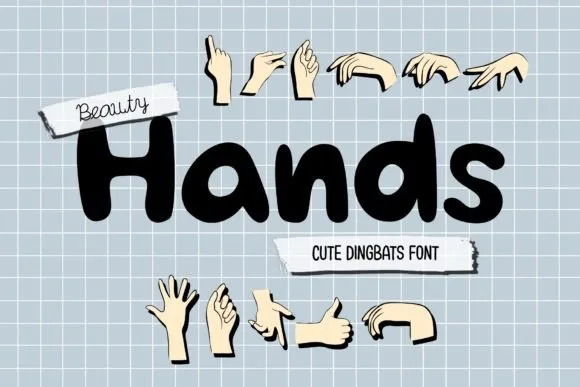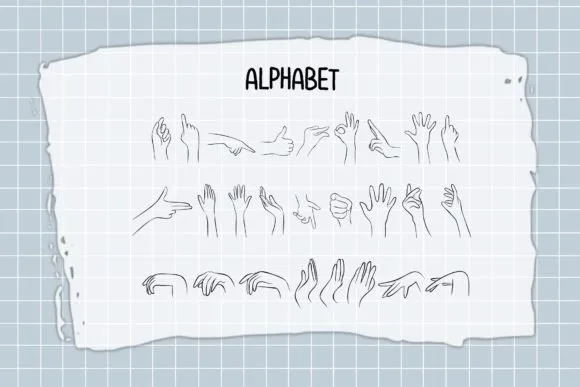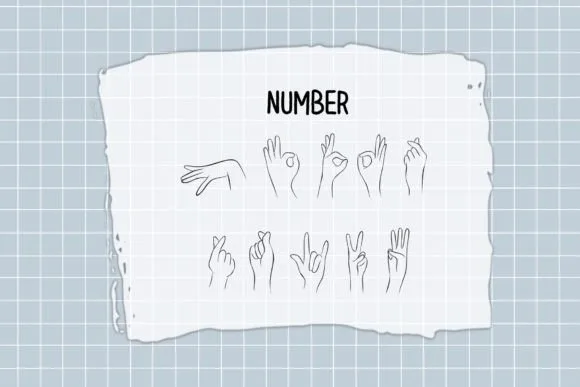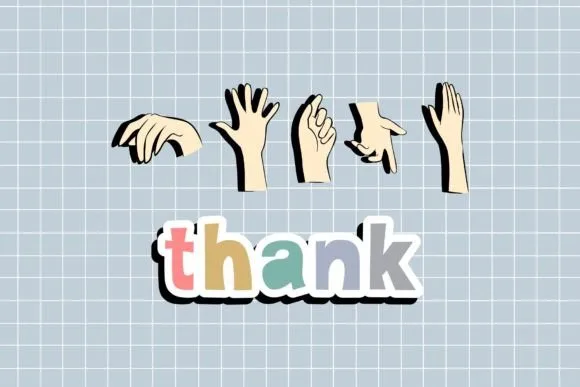
Beauty Hands Font
About Beauty Hands Font
Introducing “Beauty Hands,” a playful and funny dingbats font that adds a unique touch to your designs. With its charming hand-drawn symbols, this font is perfect for a wide range of creative projects, including logos, wall art, signs, cards, art prints, t-shirts, coloring pages, and more.
“Beauty Hands” features a collection of whimsical hand symbols, each filled with personality and character. From winking hands to thumbs-up gestures, peace signs, and high-fives, the symbols in this font bring a sense of fun and positivity to your designs. Whether you’re creating a lighthearted logo, a playful greeting card, or a vibrant art print, “Beauty Hands” adds an element of humor and creativity.
The playful nature of “Beauty Hands” makes it versatile for various design applications. Use the symbols individually or combine them to create unique compositions. Let your imagination run wild as you incorporate these hand-drawn symbols into your artwork. Whether you want to convey a friendly message, add a touch of humor, or simply inject some fun into your designs, “Beauty Hands” offers endless possibilities.
With “Beauty Hands,” you can easily bring these funny symbols to life. Simply type out the corresponding characters on your keyboard, and the hand-drawn symbols will appear. You can resize, rotate, or arrange the symbols to suit your design needs. Whether you’re working on digital or print projects, “Beauty Hands” allows you to express your creativity with a touch of playfulness.
The versatility of “Beauty Hands” extends to various design mediums. Use it for digital graphics, social media posts, branding materials, promotional materials, or any other creative endeavor. The funny and engaging nature of the symbols will catch the attention of your audience and leave a memorable impression.
Embrace the playful and humorous vibe of “Beauty Hands” and let it bring a smile to your designs. Whether you’re aiming for a light-hearted logo or want to add a touch of fun to your artwork, this dingbats font is the perfect fit. Explore the possibilities and unleash your creativity with “Beauty Hands”!